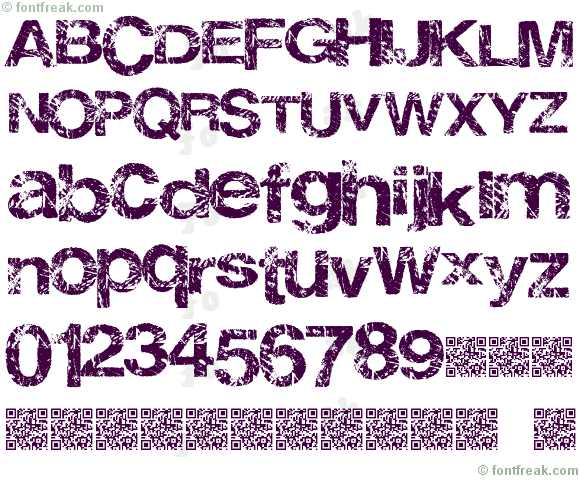
ThirdRail
About ThirdRail
The ThirdRail font by Xerographer Fonts is a distinctive display typeface that captures attention with its unique character. Released in 2013, this font leans into a bold, grunge aesthetic, making it perfect for a variety of creative applications. Its visual characteristics include a rough, textured appearance that gives it an organic feel. The uneven stroke weight and lack of uniformity create a sense of spontaneity, while the ample spacing between letters enhances legibility, making it stand out even in larger formats.
ThirdRail excels in various use cases, particularly in areas that require a touch of rugged charm. It is ideal for movie posters, where dramatic titles demand strong visual impact. Additionally, it works beautifully for restaurant menus, especially in establishments that emphasize a rustic or artisanal theme. Graphic designers will appreciate its versatility for branding projects, including logos that aim to convey authenticity and creativity. Moreover, it can add flair to merchandise design, making T-shirts or promotional materials feel unique and appealing.
What sets the ThirdRail font apart is its ability to blend a casual, hand-crafted feel with professional usability. This font is not just a typeface; it’s a statement, inviting users to express their creativity and individuality. For those seeking a font that stands out in a crowded digital landscape, the ThirdRail font free download is an excellent choice that promises to elevate any design project.